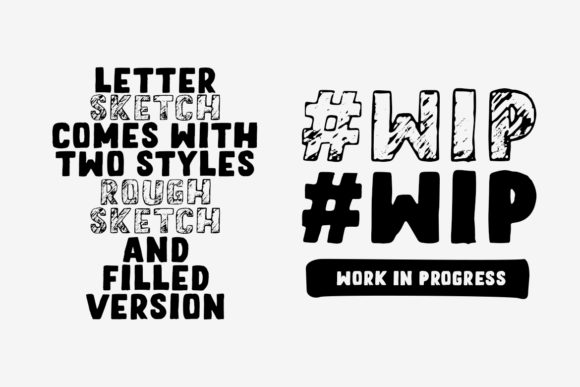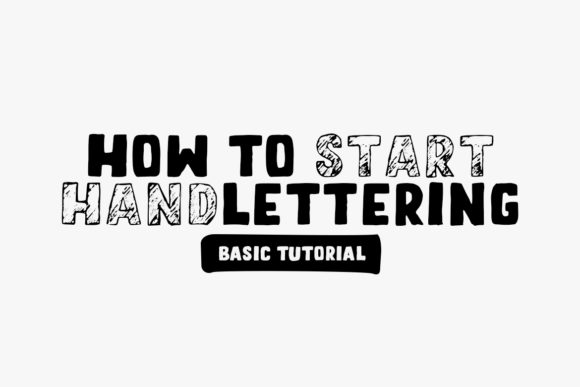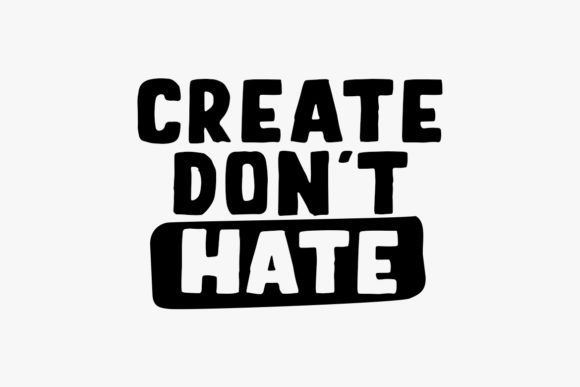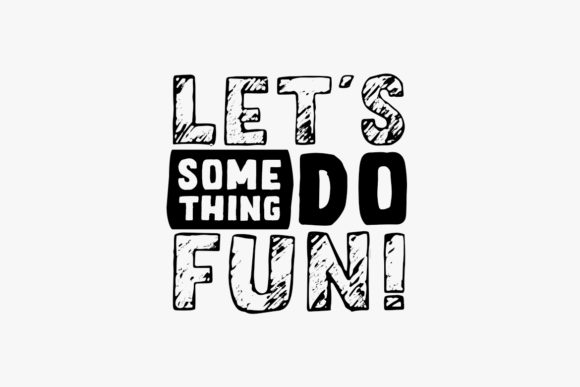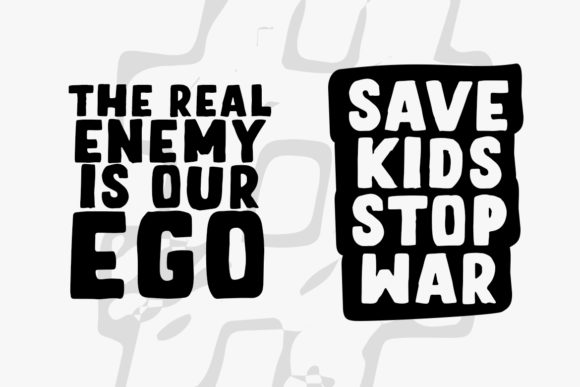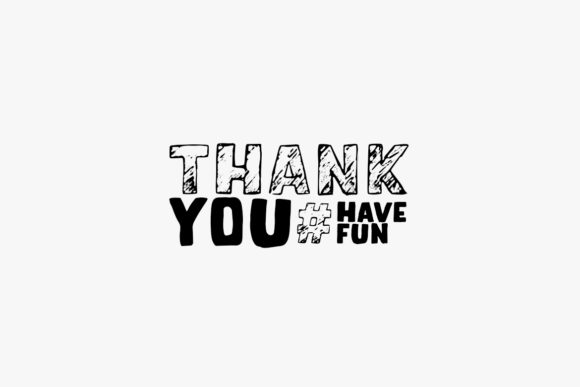
Letter Sketch Font
Letter Sketch is a fun typeface that is great for quotes, taglines, or headlines. It’s all caps and comes in two styles, rough sketch and filled. You’ll find its natural drawing style in each character!